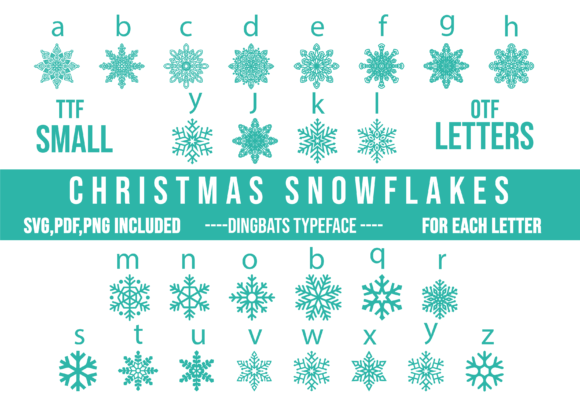
Christmas Snowflakes Font: A Festive and Versatile Dingbats Font
As the holiday season approaches, designers, crafters, and card-makers are on the lookout for the perfect font to add a touch of festive flair to their projects. Look no further than the Christmas Snowflakes Font, a cool and versatile dingbats font that’s perfect for a variety of uses. In this article, we’ll explore the features and benefits of this font, and show you how it can become your go-to font for all your holiday projects.
What is Christmas Snowflakes Font?
Christmas Snowflakes Font is a unique dingbats font that features intricate and delicate snowflake designs. The font is made up of individual snowflakes, each one carefully crafted to be distinct and beautiful. The result is a font that’s both festive and elegant, perfect for adding a touch of winter wonderland magic to your projects.
Features of Christmas Snowflakes Font
So what makes Christmas Snowflakes Font so special? Here are just a few of its key features:
- Unique and intricate designs: Each snowflake in the font is carefully crafted to be distinct and beautiful, making it perfect for adding a touch of elegance to your projects.
- Festive and versatile: Whether you’re making holiday cards, crafting winter-themed decorations, or designing festive presentations, this font is perfect for any occasion.
- Easily scalable: The font is designed to be easily scalable, making it perfect for use in a variety of projects, from small crafts to large-scale designs.
Uses for Christmas Snowflakes Font
So what can you use Christmas Snowflakes Font for? The possibilities are endless! Here are just a few ideas to get you started:
Crafts
Use Christmas Snowflakes Font to add a festive touch to your holiday crafts, such as snowflake decorations, gift tags, and cards.
Digital Design
Add a touch of winter wonderland magic to your digital designs, such as social media graphics, blog posts, and website headers.
Presentations
Use Christmas Snowflakes Font to add a festive touch to your holiday presentations, such as company reports, sales pitches, and educational materials.
Greeting Cards
Create beautiful and unique holiday greeting cards using Christmas Snowflakes Font, perfect for sending to friends and family.
Tips for Using Christmas Snowflakes Font
Here are a few tips for getting the most out of Christmas Snowflakes Font:
- Experiment with different sizes and colors: Don’t be afraid to try out different sizes and colors to see what works best for your project.
- Combine with other fonts: Christmas Snowflakes Font pairs well with a variety of other fonts, so don’t be afraid to experiment with different combinations.
- Use it sparingly: While Christmas Snowflakes Font is beautiful, it can be overwhelming if used too much. Use it sparingly to add a touch of festive flair to your project.
Christmas Snowflakes Font is a versatile and beautiful dingbats font that’s perfect for adding a touch of festive flair to your holiday projects. With its unique and intricate designs, festive and versatile style, and compatibility with most design software, it’s the perfect font for designers, crafters, and card-makers alike. So why not give it a try and see how it can become your go-to font for all your holiday projects?